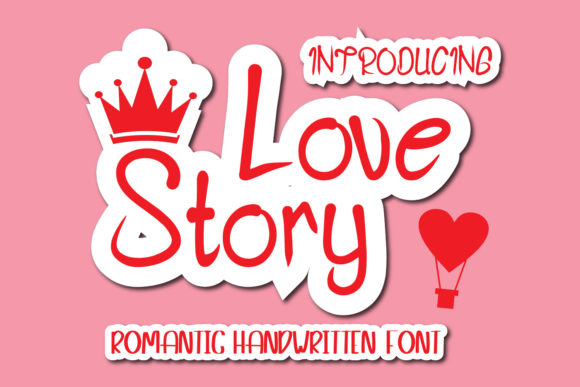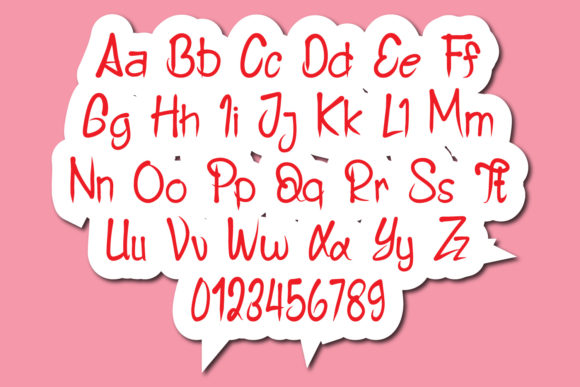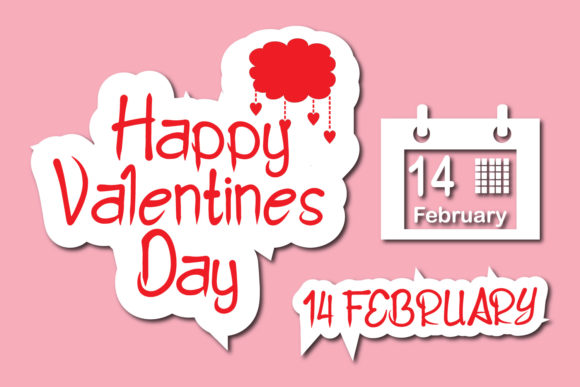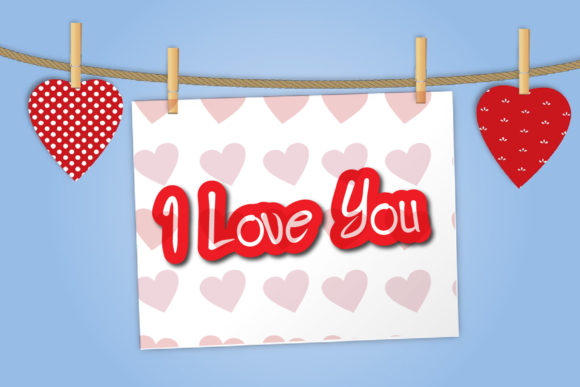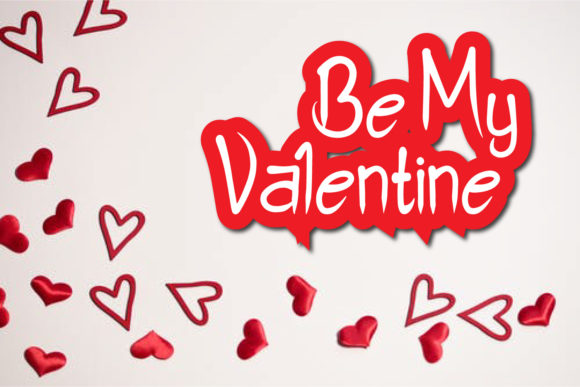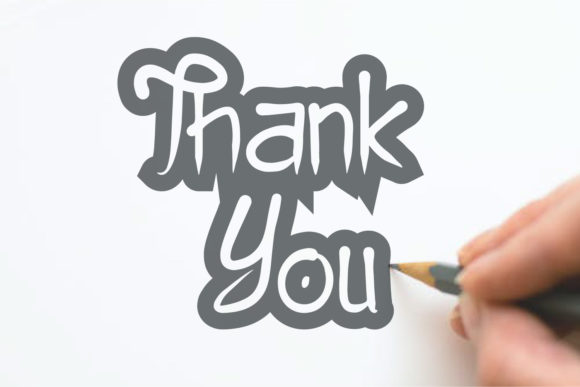
Love Story Font
About Love Story Font
Love Story is a whimsical script font with a relaxed theme, featuring a lovely style. No matter the topic, this font will be an incredibly asset to your fonts’ library, as it has the potential to elevate any creation.